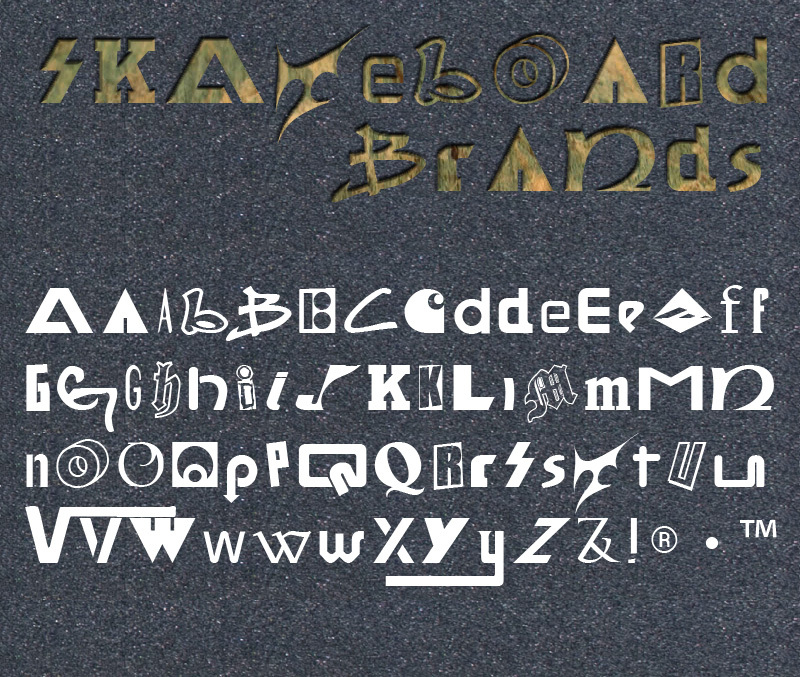
Skateboard Brands by Manuel Viergutz is a free decorative display font that boldly turns each letter into a different logo-like construction. Sharp wedges, blackletter curls, inflated curves, and geometric cuts keep the alphabet deliberately mismatched.
Logo-style imagery is built directly into the lettering, making it useful for skate graphics, streetwear branding, and music posters with a collage-like edge. Across those settings, the shifting silhouettes echo sticker clusters and mixed sponsor marks rather than one uniform typeface. Editorial covers and youth-culture packaging offer another fitting home for its unruly brand-parody visual approach.